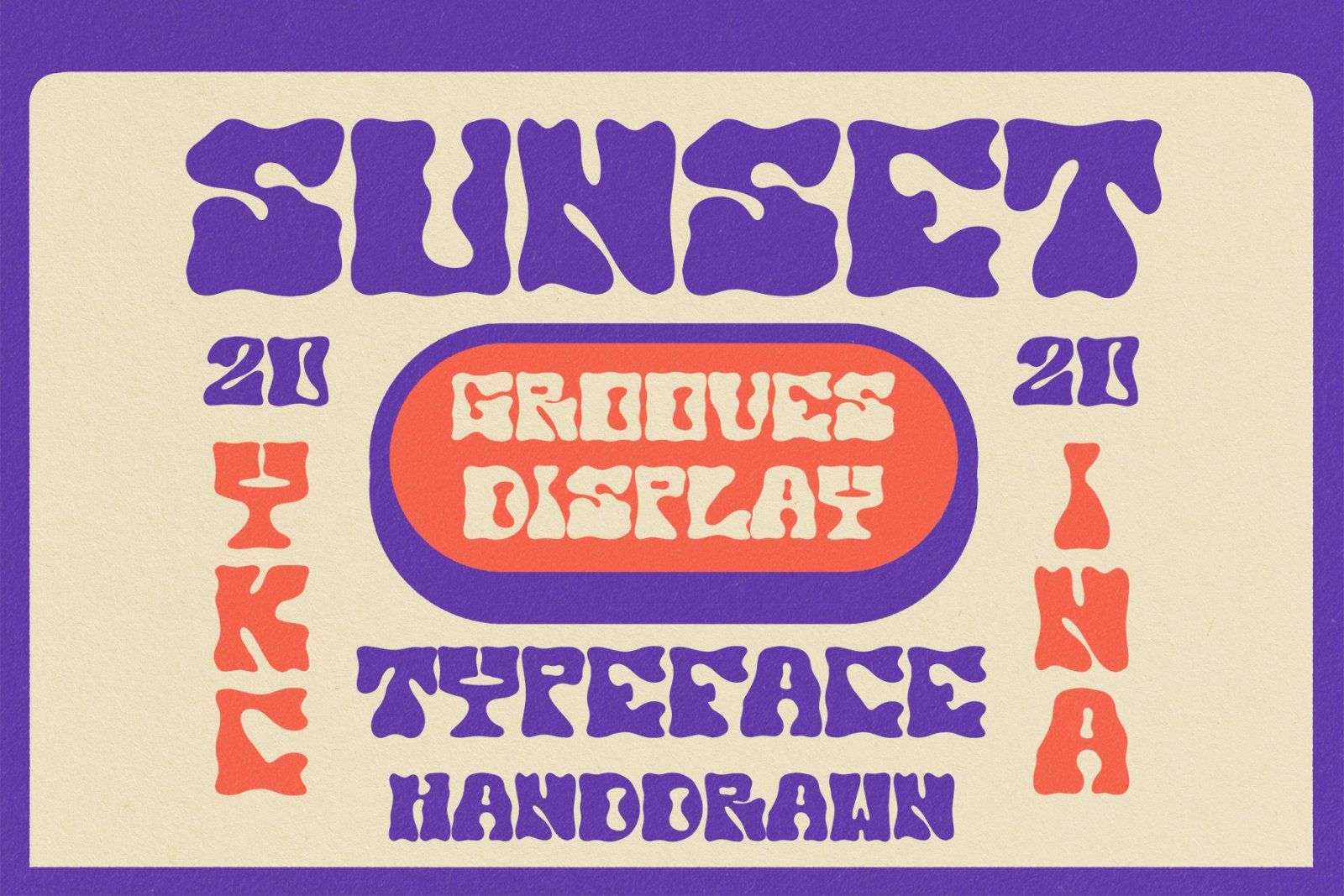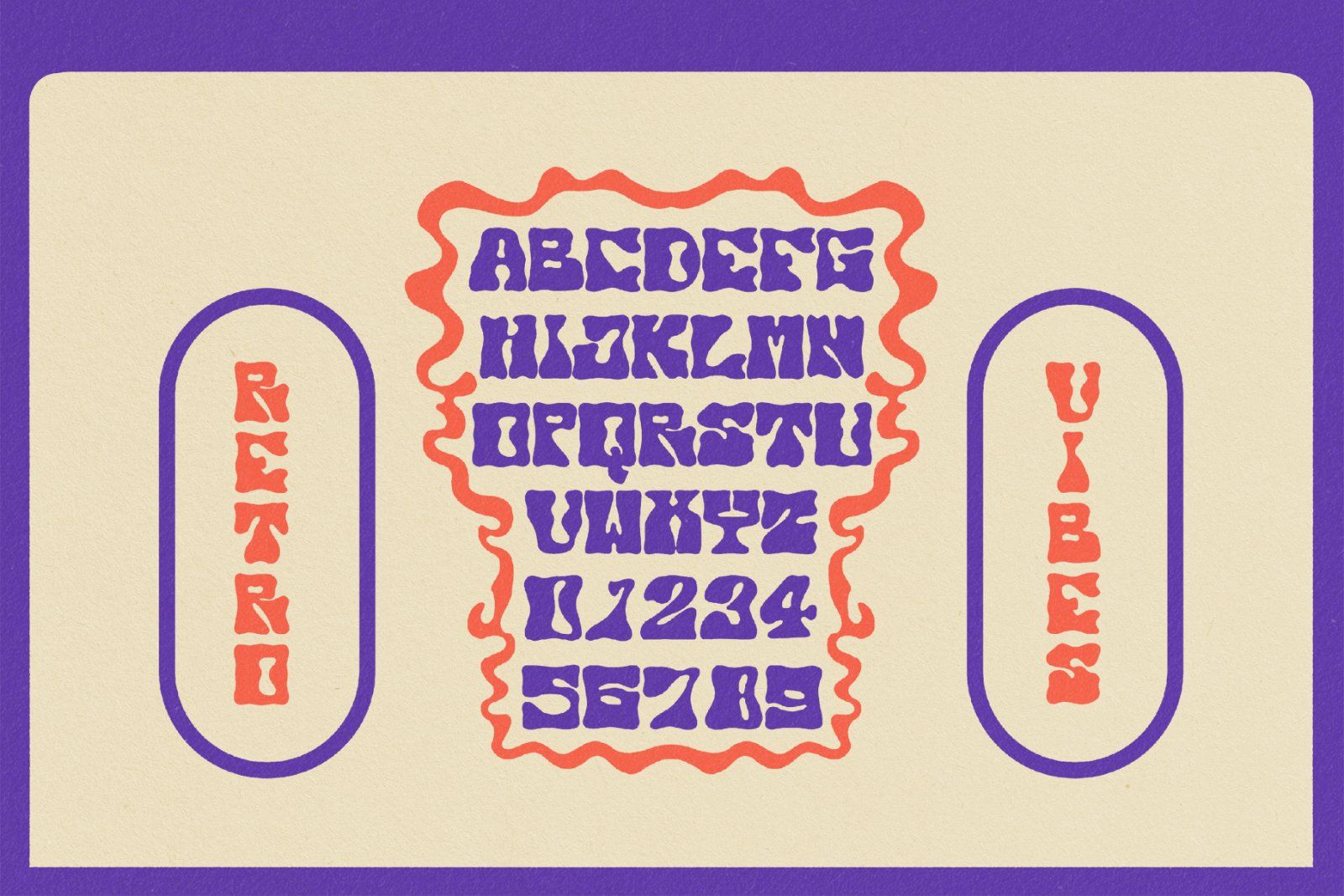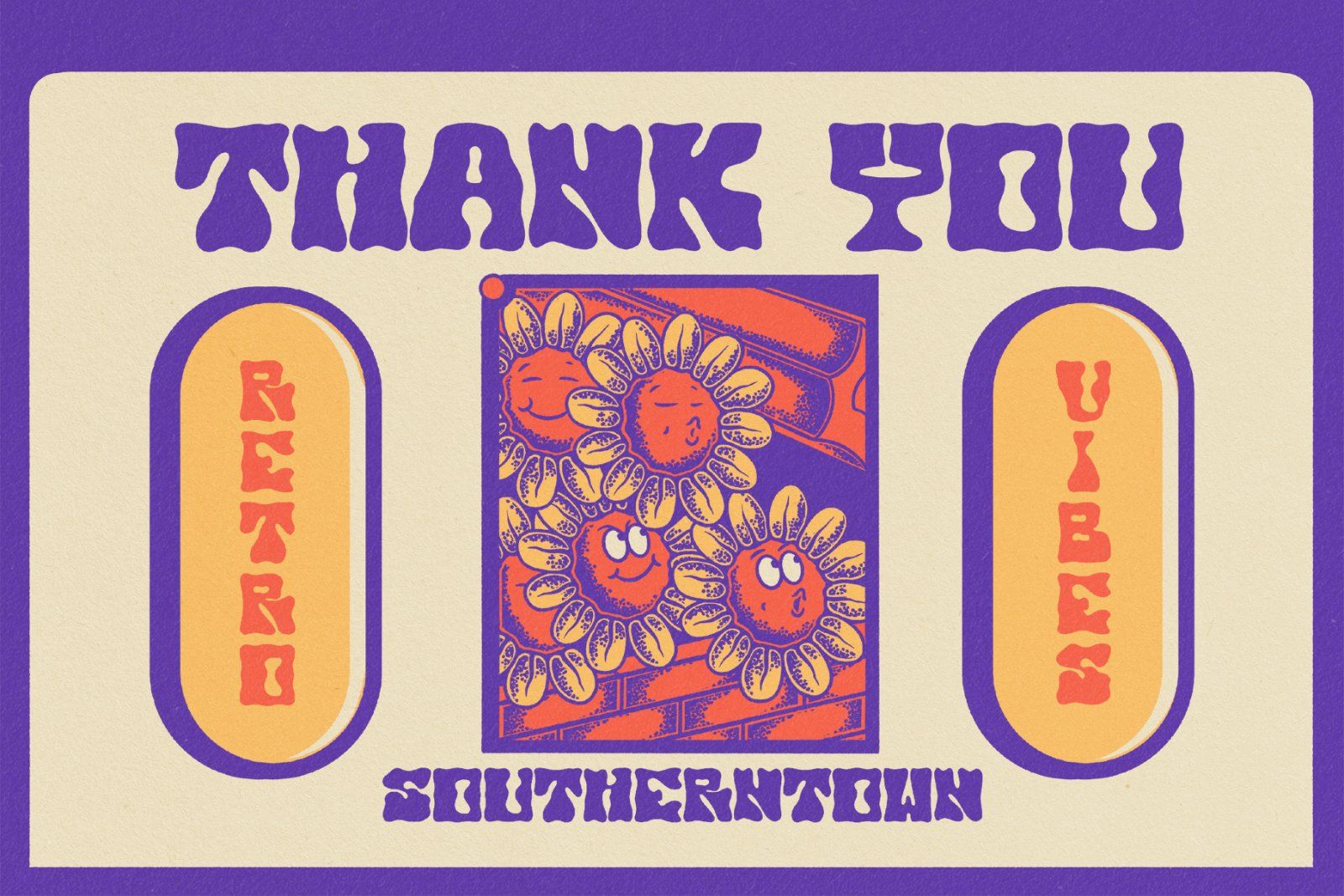
Bring back the groovy vibes of the 70s with Sunset Grooves, a bold and wavy hand-drawn display font perfect for retro-inspired designs. This typeface blends psychedelic curves with a modern twist, making it ideal for posters, apparel, album covers, branding, and packaging that need a fun and nostalgic touch.